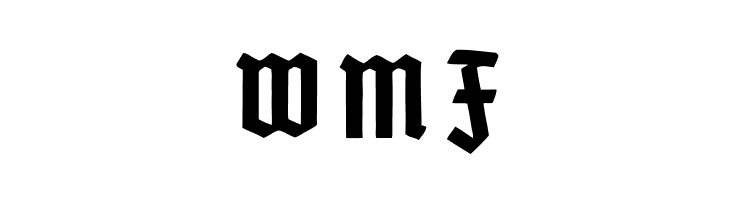
• GrobeDeutschmeister
A bold, blackletter-style font with sharp, angular lines and a gothic feel.
• GrobeDeutschmeister
A bold, blackletter font with sharp, angular lines and a Gothic aesthetic.